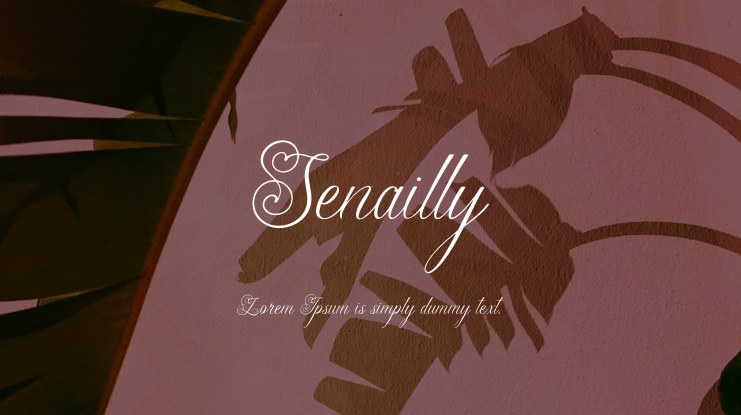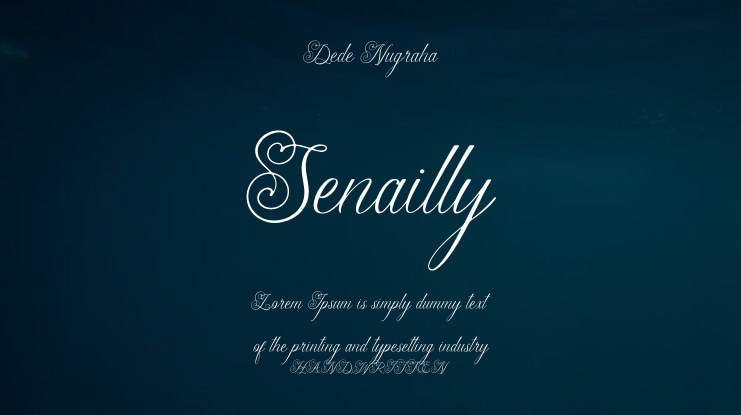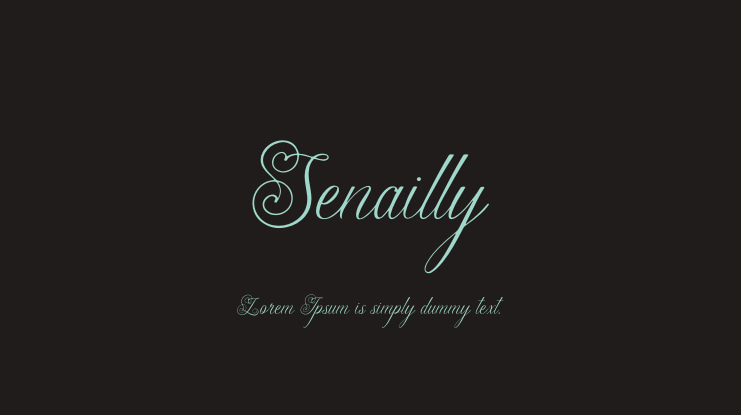
Senailly Font
Senailly | Modern Beauty Script is perfect for a variety of projects such as logos, branding, homeware designs, product packaging, mugs, quotes, posters, shopping bags, t-shirts, book covers, name cards, invitation cards, greeting cards, labels, photography, watermarks, special events, and any other creative projects that require a touch of Modern Beauty Script.